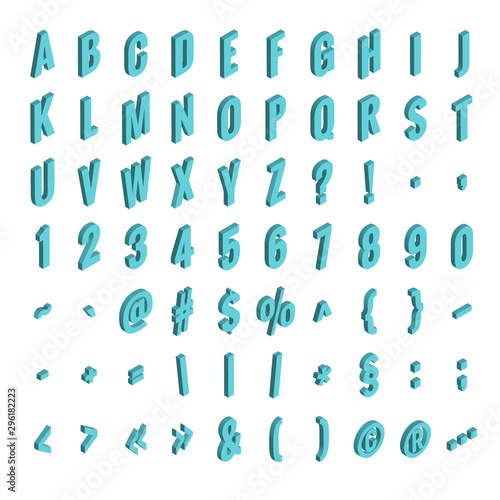
Isometric font alphabet isolated on the background. Isometric abc. Letters, numbers and symbols. Three-Dimensional stock typography for headlines, posters etc